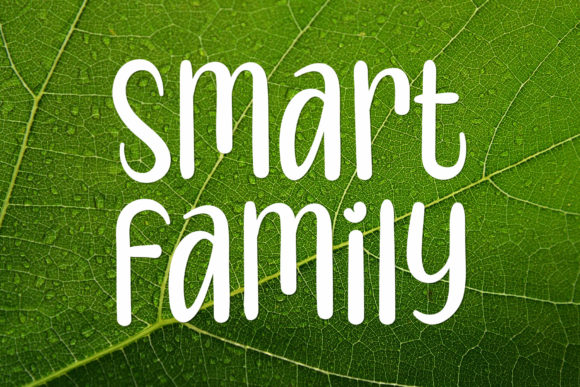
**Introducing Smart Family Font: The Key to Unlocking Your Creative Potential**
In a world saturated with countless fonts, Smart Family Font emerges as a beacon of elegance and distinction. Its captivating script style, meticulously crafted by the renowned Flower, is a testament to the power of handwritten artistry. This font family is not merely a collection of characters; it's an invitation to embark on a journey of creative expression, where your imagination knows no bounds.
With Smart Family Font, you hold the key to transforming your designs into works of art. Whether you're crafting wedding invitations that exude timeless romance or creating logos that command attention, this font will elevate your creations to new heights. Its delicate strokes and graceful curves add a touch of sophistication that will leave a lasting impression on your audience.
**Why Choose Smart Family Font?**
* **Small Display Specialist:** Smart Family Font excels in small display settings, making it the perfect choice for logos, business cards, and other compact designs. Its characters maintain their clarity and beauty even at reduced sizes, ensuring that your message shines bright in any context.
* **Handwritten Charm:** The essence of Smart Family Font lies in its handwritten aesthetic. Each letter is lovingly crafted to mimic the natural flow and charm of penmanship, infusing your designs with a personal and authentic touch. This font will make your creations feel like they were written from the heart.
* **Unleash Your Creativity:** Smart Family Font is not just a tool; it's an open invitation to unleash your creativity. Whether you're a seasoned designer or just starting your artistic journey, this font will empower you to explore new possibilities and bring your visions to life. Its versatility and adaptability make it the perfect companion for a wide range of projects.
**Experience the Smart Family Font Difference**